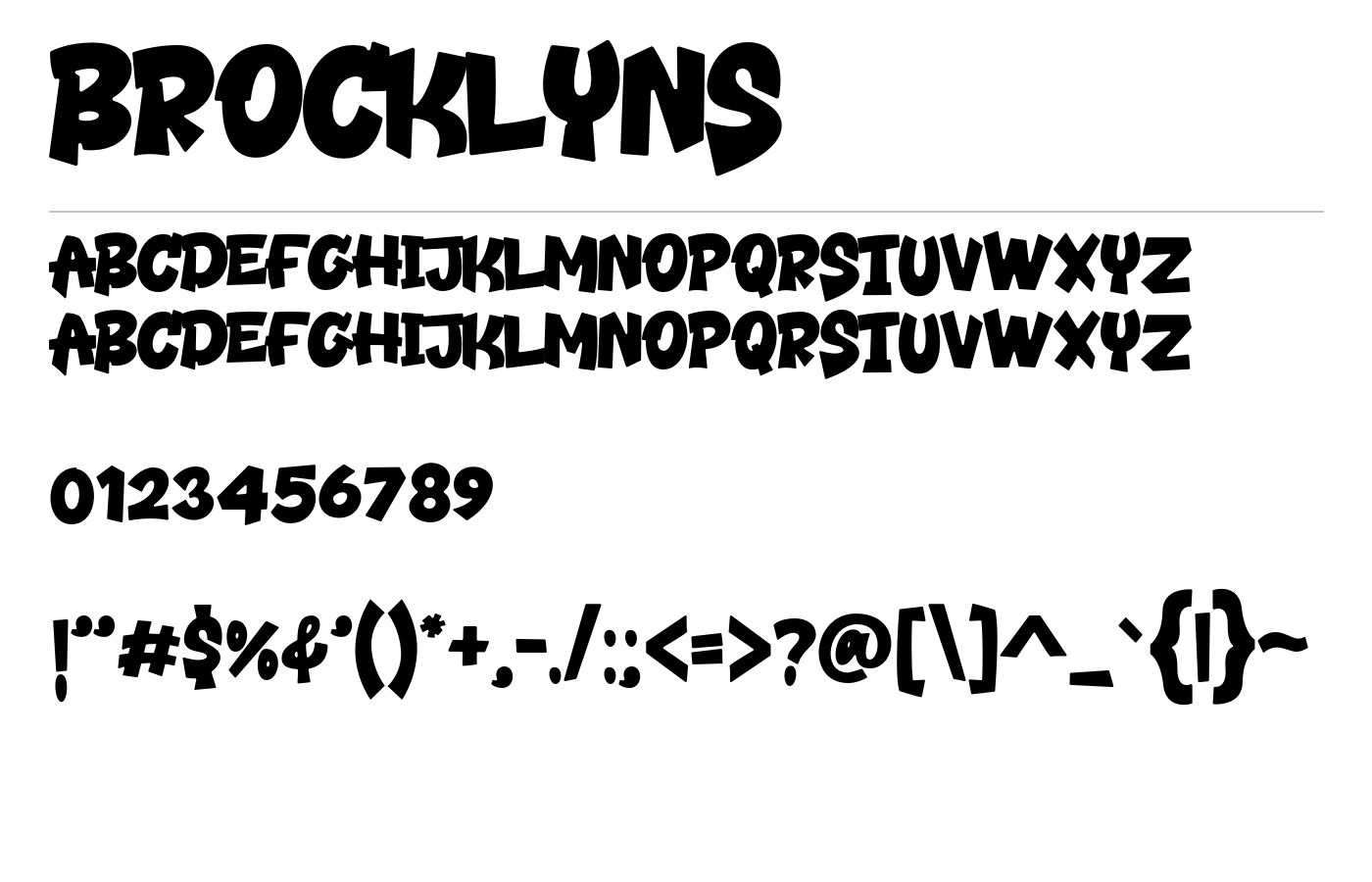
Brocklyns is a bold, playful sans serif font with a chunky, slightly irregular design that gives it a fun and energetic vibe. Its thick strokes and whimsical letter shapes make it ideal for eye-catching headlines, posters, or branding where a casual, friendly tone is desired. This font works best in creative, informal settings that need a strong personality and vibrant visual impact.
Brocklyns Font
About Brocklyns Font
| Font family | Brocklyns Font |
| Designer | Dida Ahluddin |